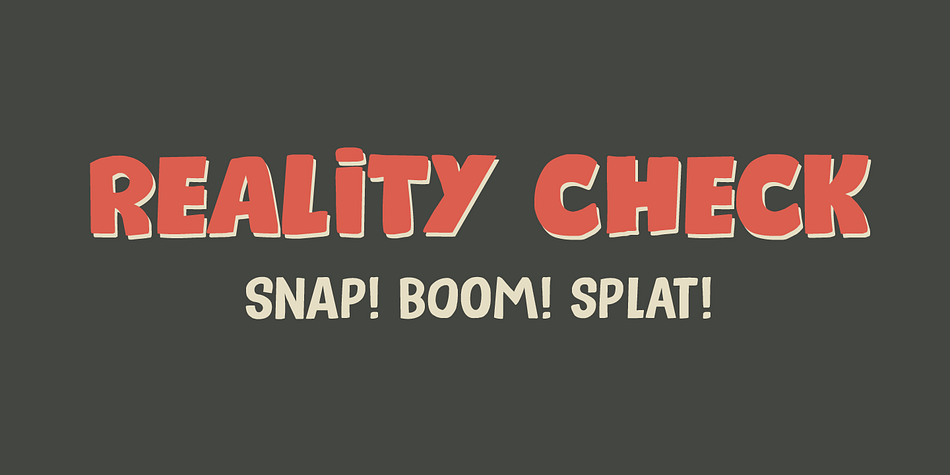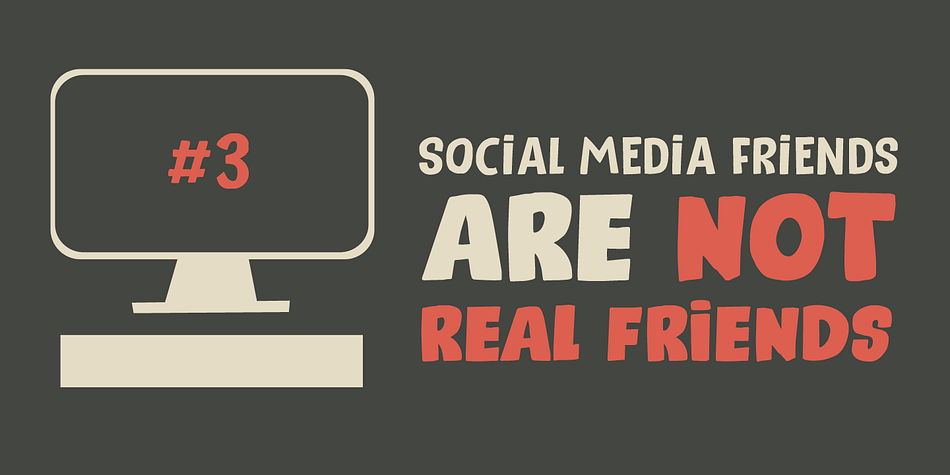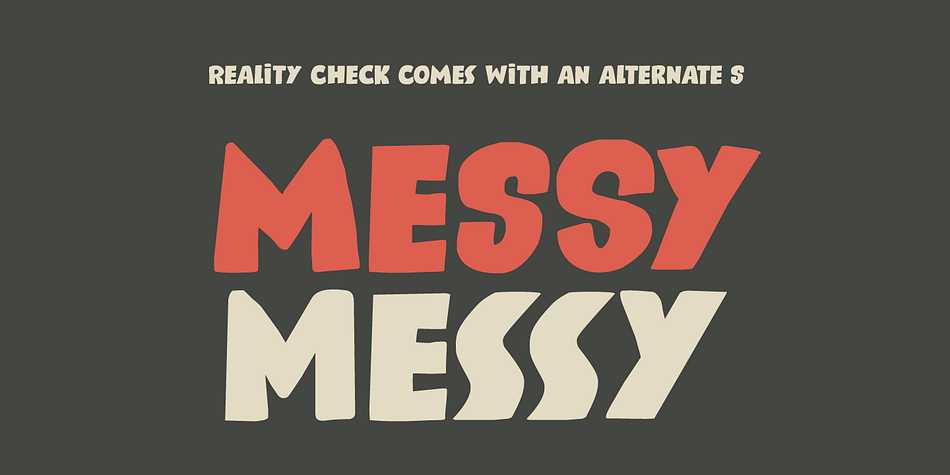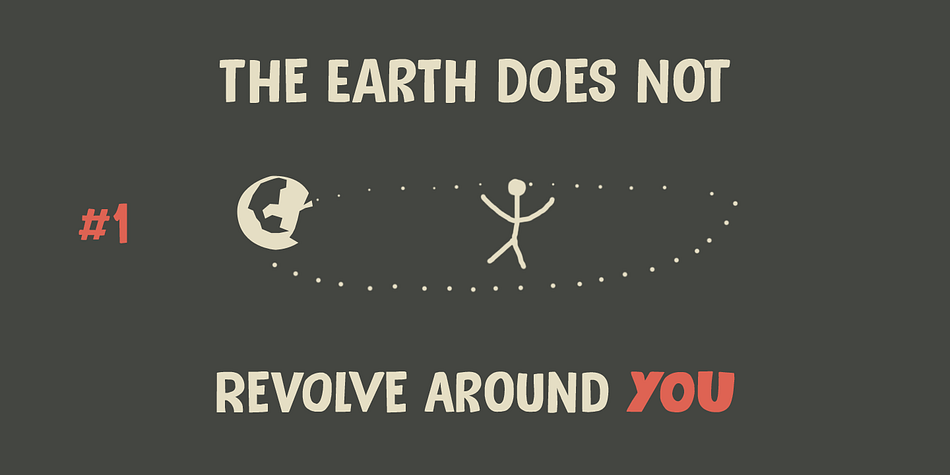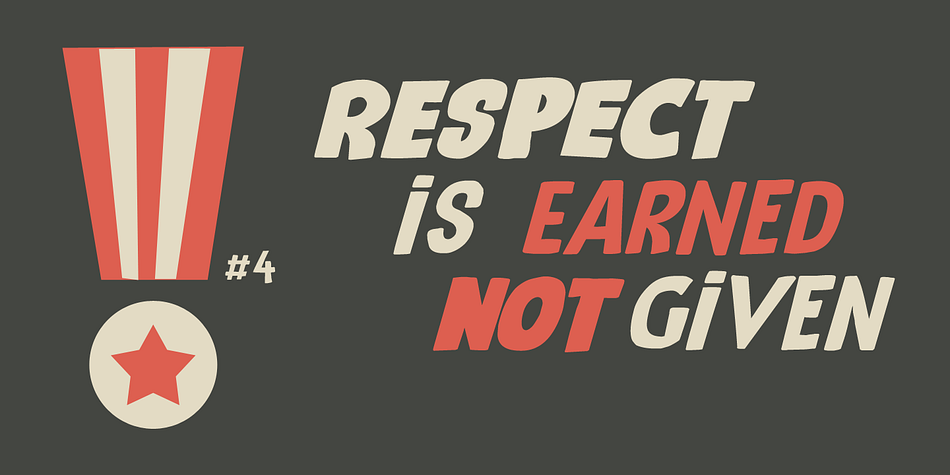
Designed by David Kerkhoff, Reality Check is a hand display font family. This typeface has four styles and was published by Hanoded.
Reality Check is a family of two display fonts (plus their Italics). These fonts can be used together in a design, but work just as fine on their own. Reality Check comes with an alternative s - just in case you get bored with the ‘normal’ one.